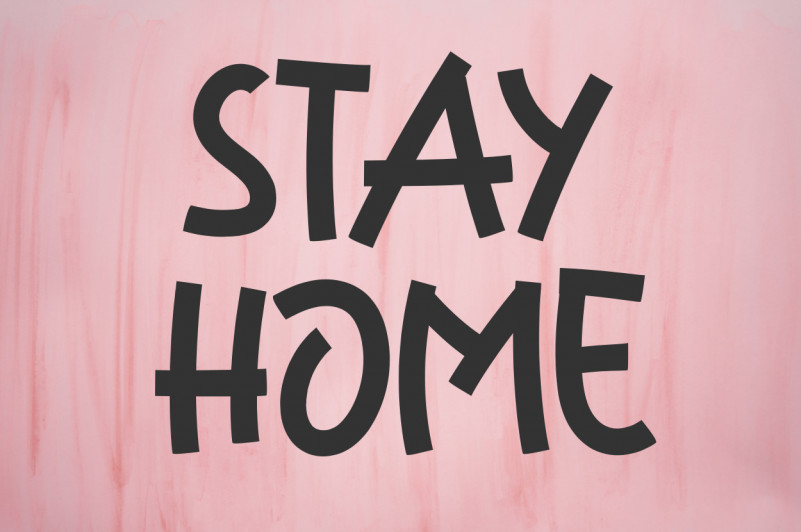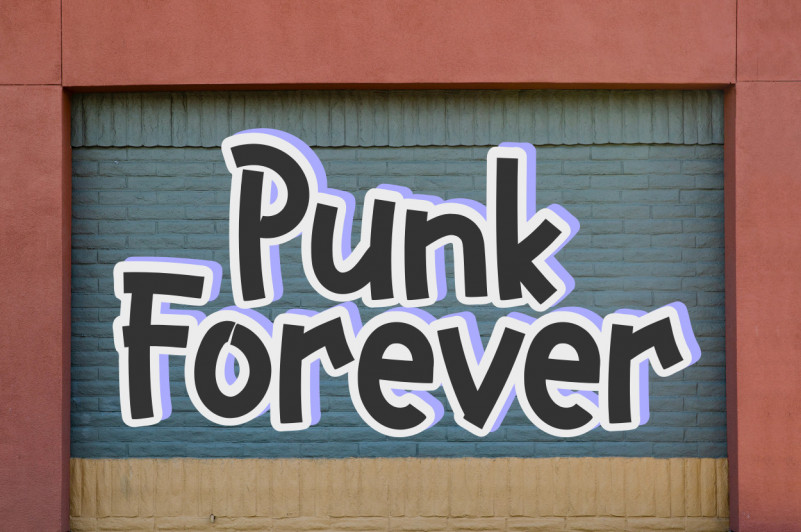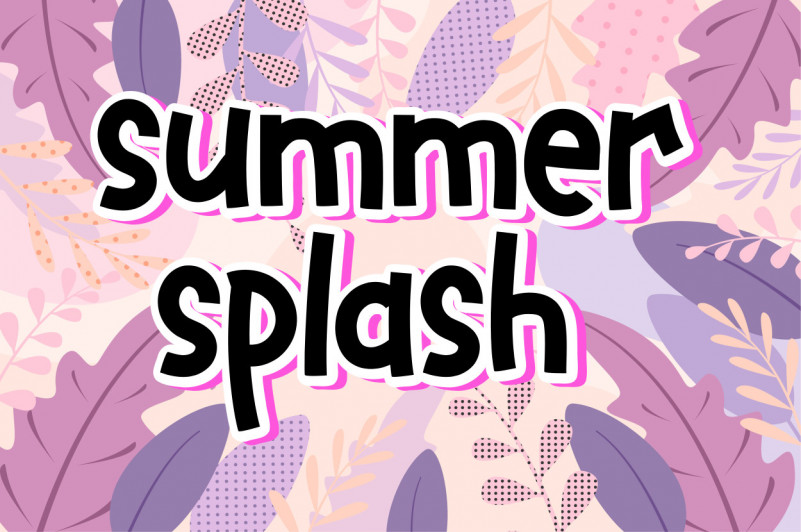
Little Boy Font
Little Boy Display Font
This is a cute and charming display font. Whimsical and a bit quirky, this font will brighten up each of your designs. Add it confidently to your projects, and you will love the results.